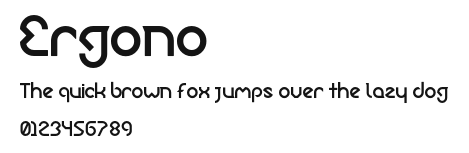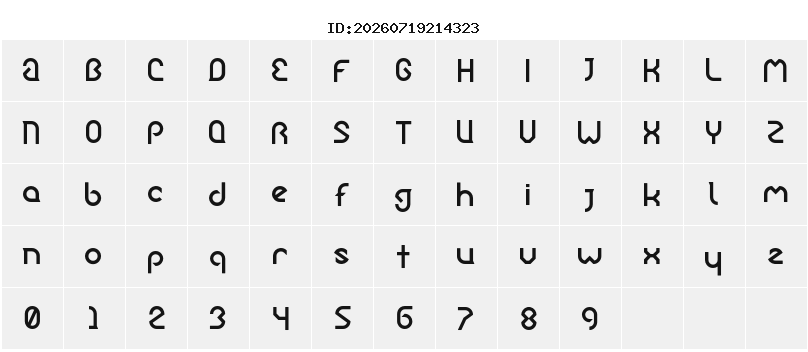
• Font Name: Ergono
• Designer: Emin Gokceoglu
• Description: Ergono Regular is a font by , designed by Emin Gokceoglu in 2013.
Ergono.otf is a modern, elegant sans-serif font designed for ultimate readability and visual harmony. Perfect for branding, headlines, web design, and print materials.